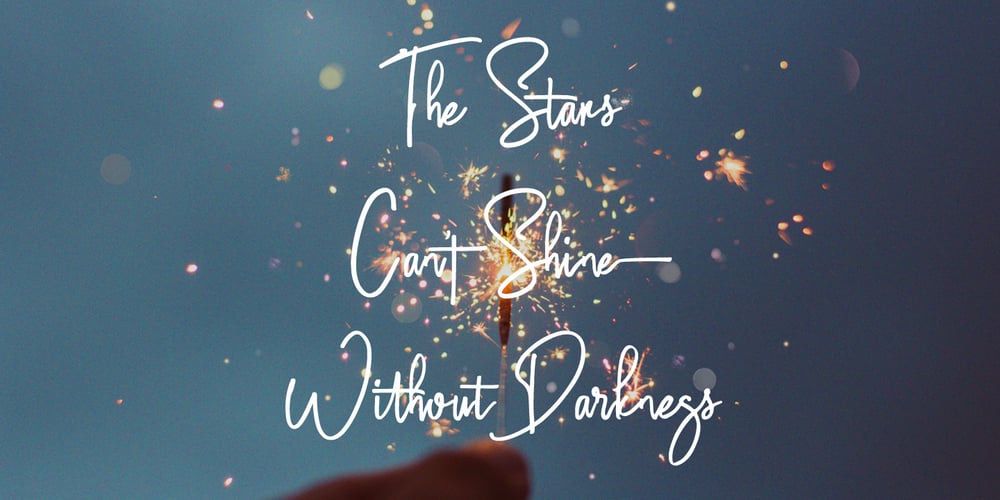
Salute Riches
Salute Riches font
Salute Riches Font Family was designed by Ferry Hadriyan and published by FHFont. Salute Riches contains 1 styles and family package options. Salute Riches is a handwritten script font with a hand lettering pen style, so many opentype features are included in the font. Suitable for element design, wedding, events, t-shirt, logo, badges, sticker, and other awesome work.